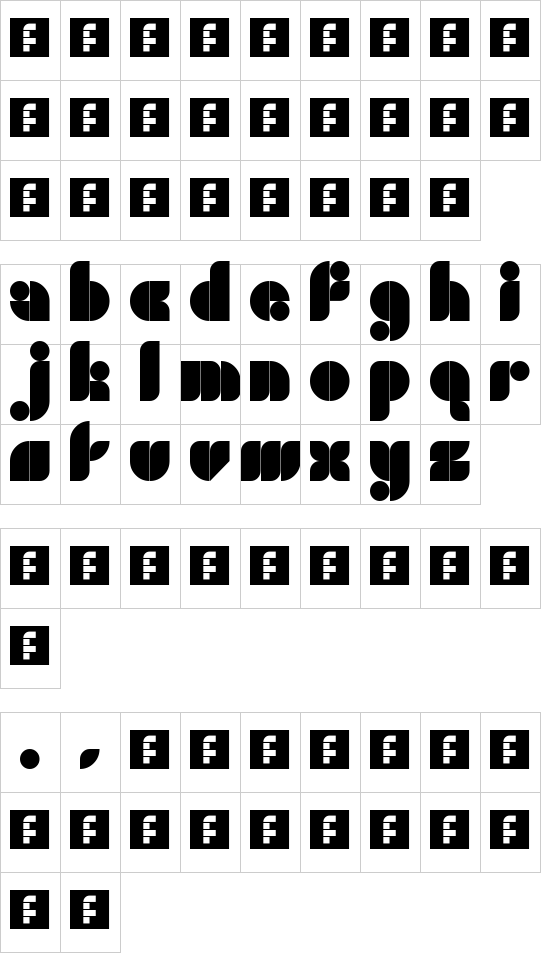
Jack Fancy is a stencil display face with decorative cut-out letters and a stylish, slightly playful character. The breaks in the strokes are arranged with a decorative eye, giving the stencil idea a dressed-up, ornamental twist.
Those patterned gaps suit boutique signage, event posters, themed branding, and bold headline graphics. Jack Fancy is free to download as a TrueType file, and you can preview it with your own text to see how the decorative stencil forms read in a title.